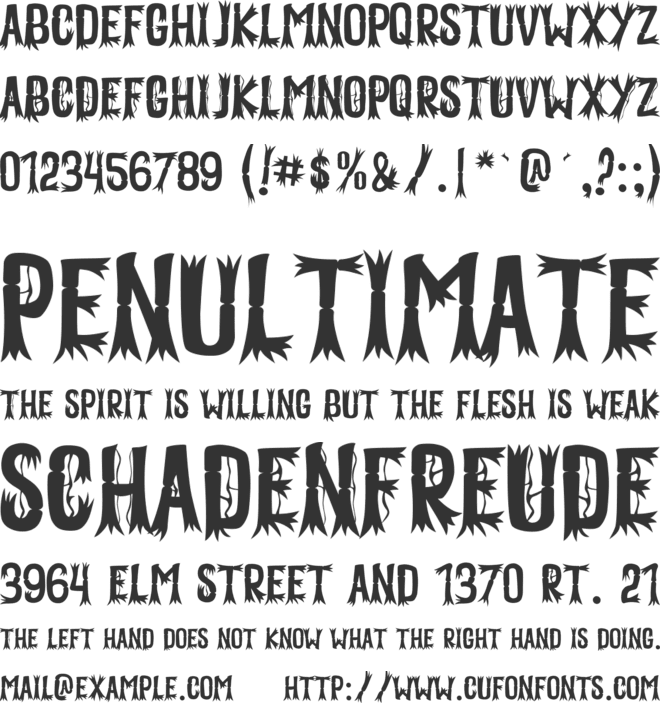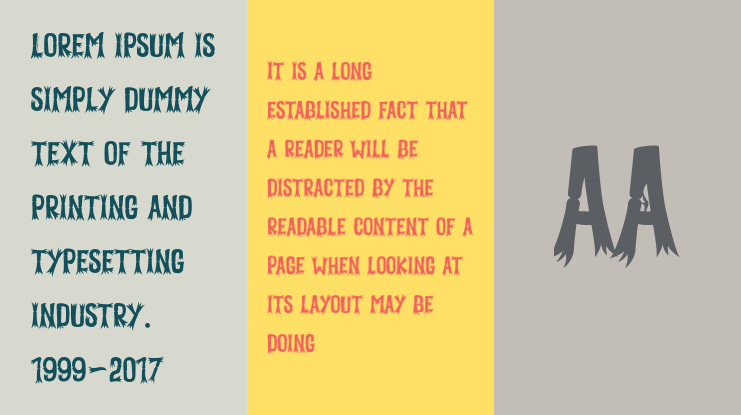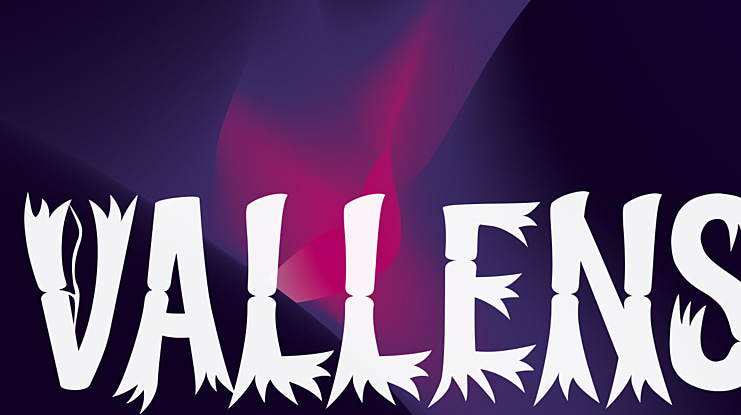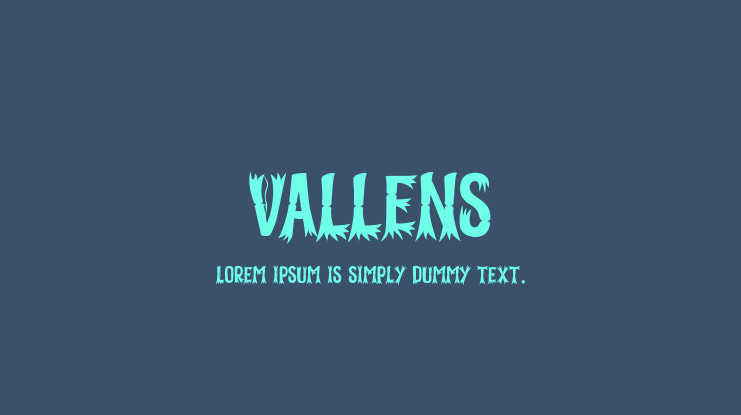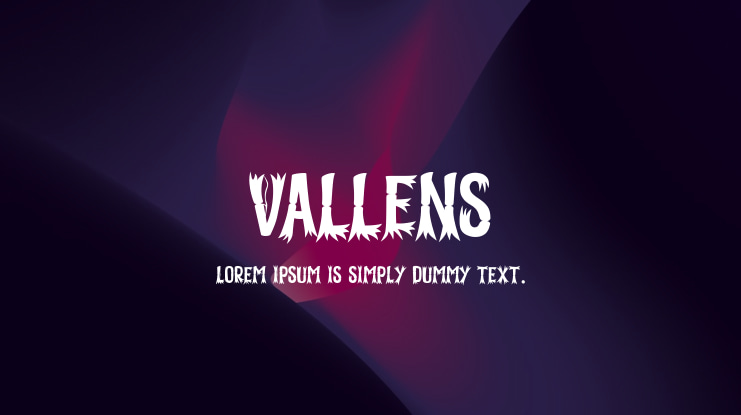
Vallens Font
Vallens is a spooky Halloween font. It is perfect for stickers, invitations, book titles, brochures or any halloween projects that requires a unique touch!